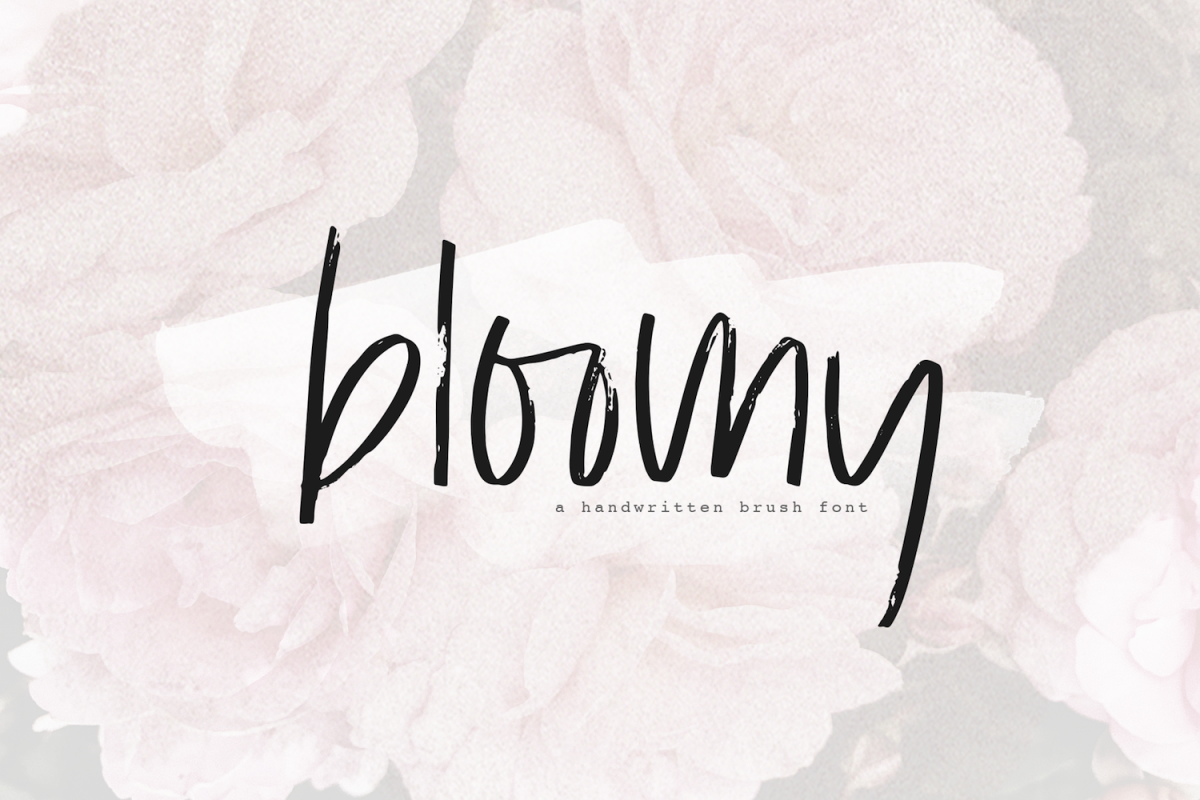
Bloomy - A Handwritten Brush Font
Bloomy is a chic handwritten font with a brush texture.
This font is perfect for quotes, headings, designs, logos, invitations and more!
This font *does not* include accent characters at this time.